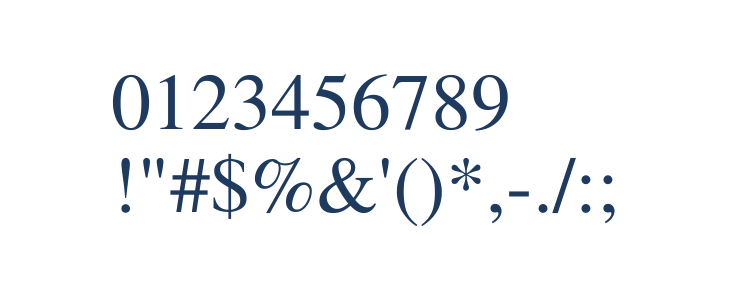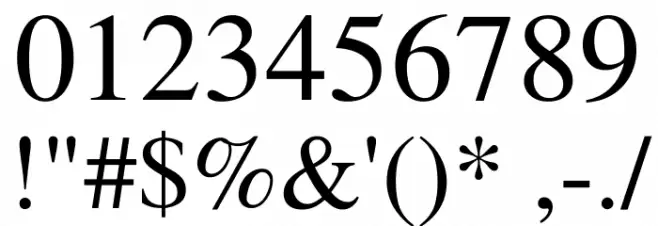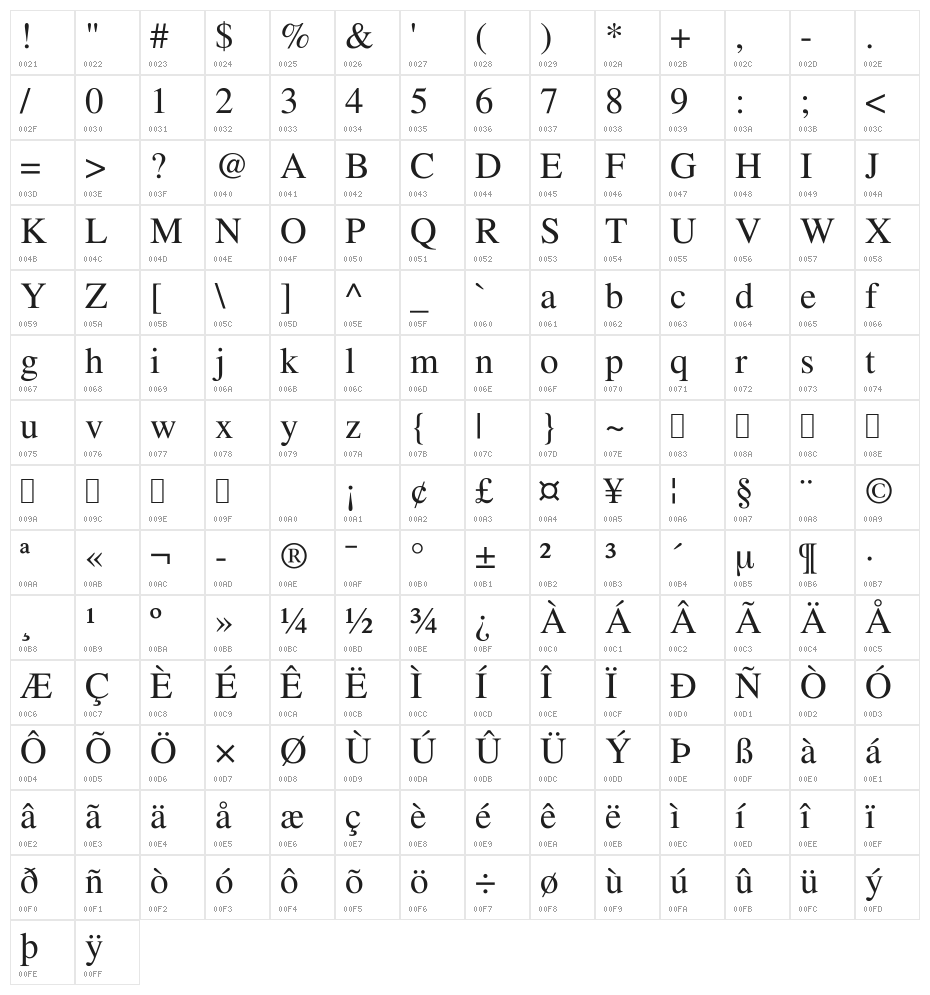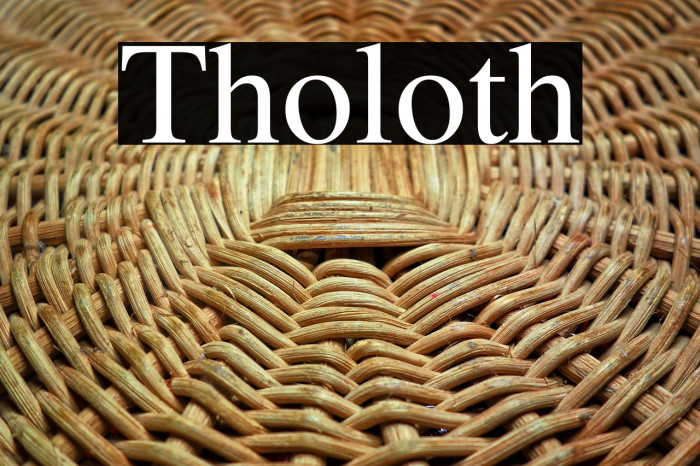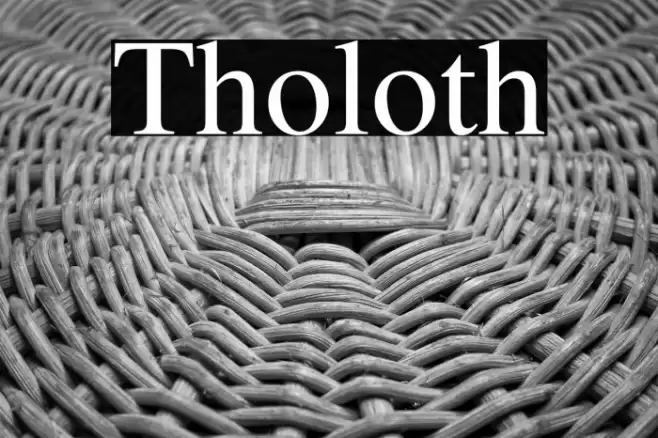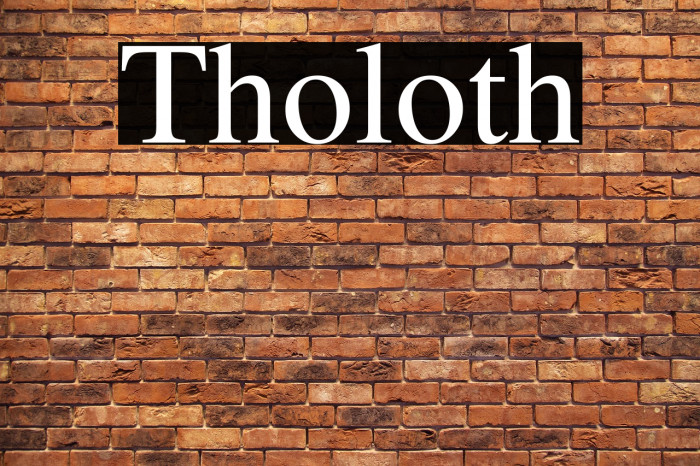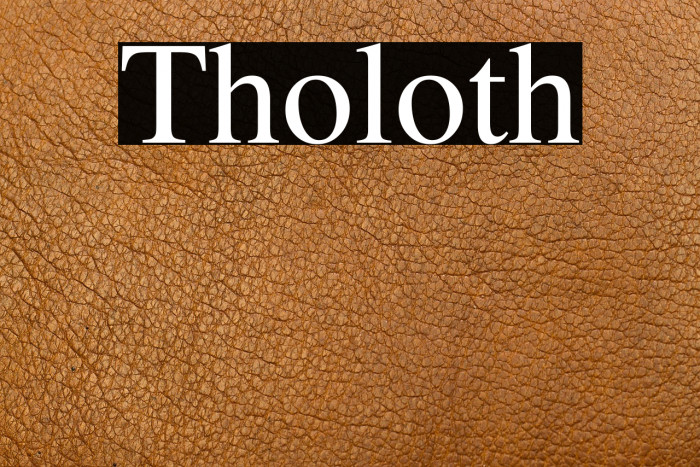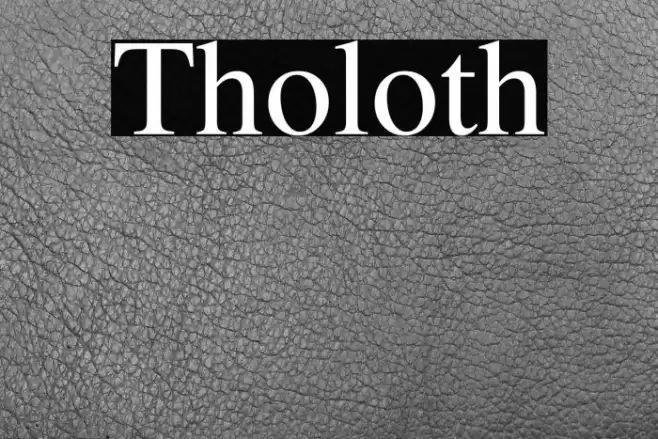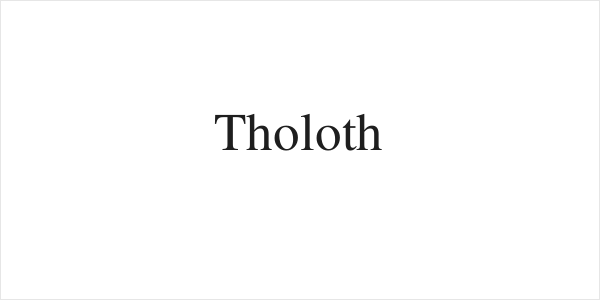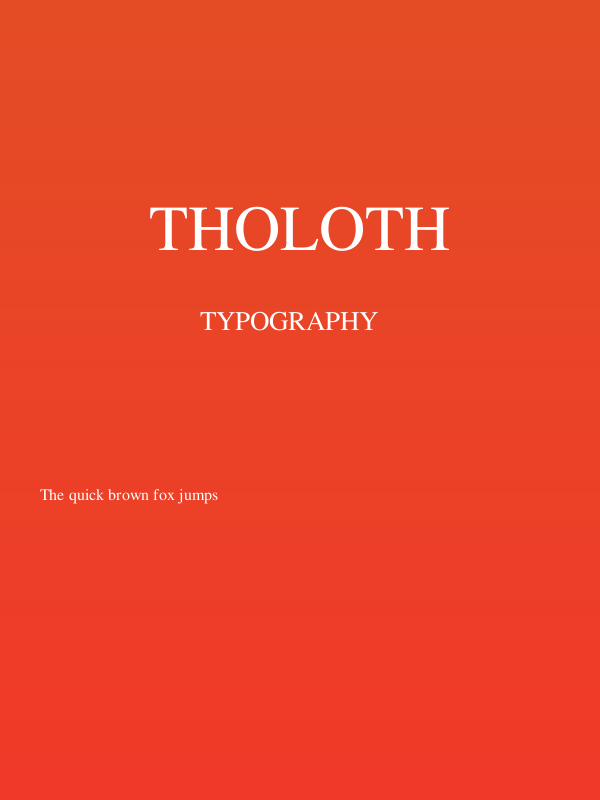
Tholoth Font
Tholoth Description
This font features a classic serif style with elegant, sharp serifs and a balanced proportion between thick and thin strokes. The uppercase letters are bold and commanding, while the lowercase letters maintain a graceful and readable form. The numerals are clear and distinct, making them suitable for both formal and casual settings. The special characters are well-integrated, maintaining the overall aesthetic of the font. This typeface exudes a timeless quality, making it versatile for various design applications.
| Proposed Projects | Ideal for editorial design, book covers, formal invitations, and branding projects that require a touch of elegance and tradition. |